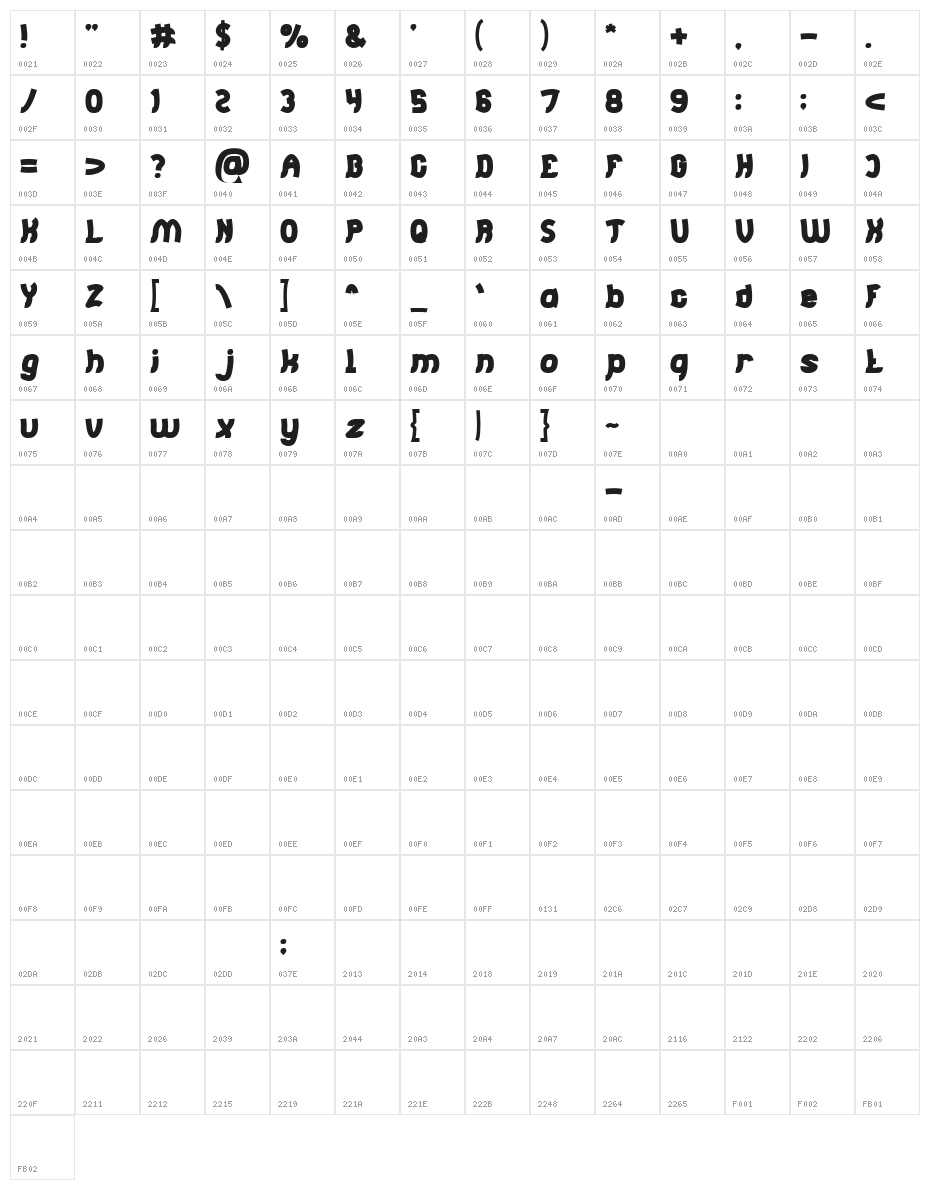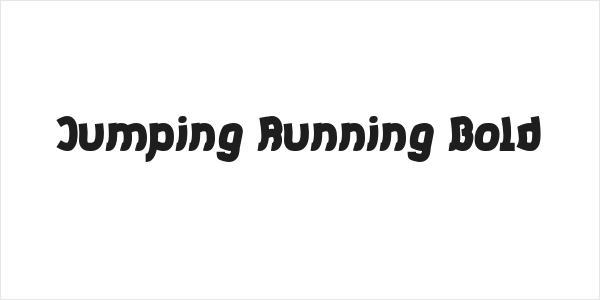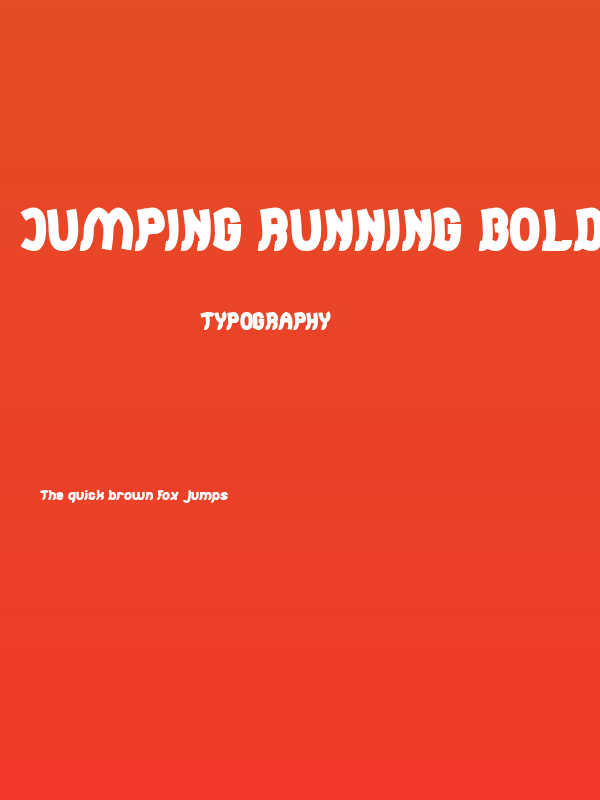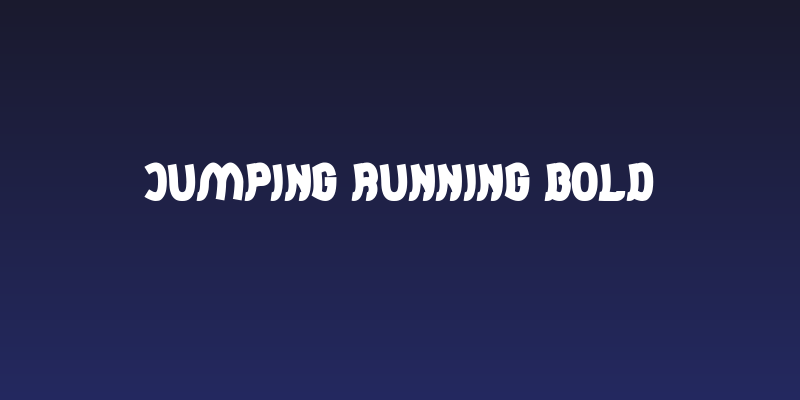
Jumping Running Bold Font
| Stile generale | Playful, Modern |
| Progetti proposti | Ideal for children's books, playful branding, event posters, or any project needing a fun and lively touch. |